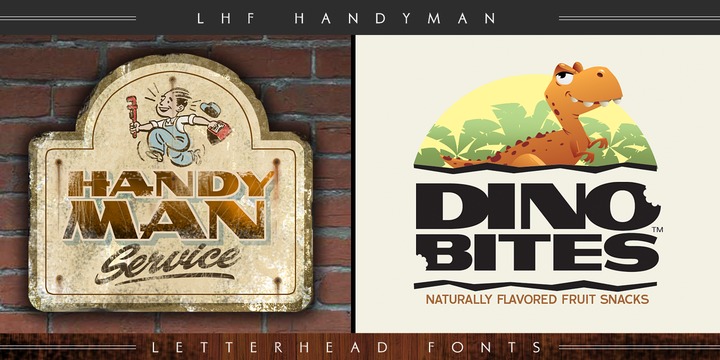
LHF Handyman™
LHF Handyman from Patrick Kalange, is a fresh take on 1940’s traditional Gothic sign lettering. This handsome font set includes a regular and a lined convex version, handy for logos, signs, and poster work.